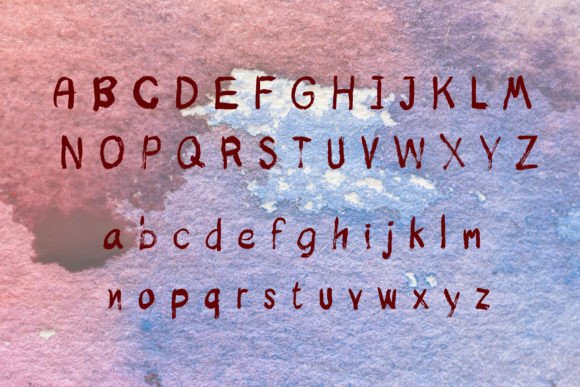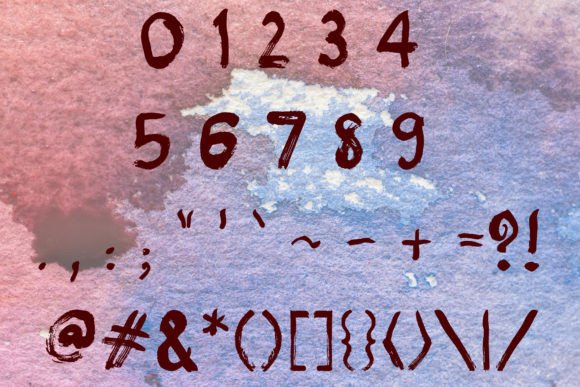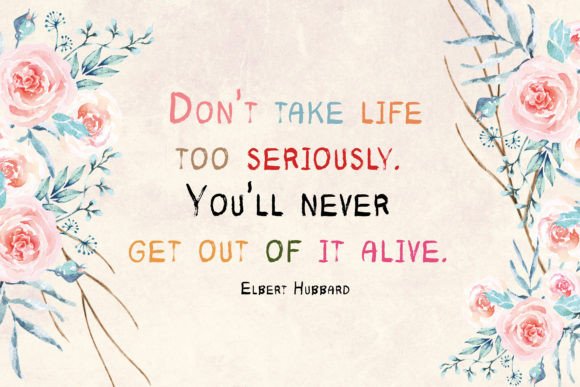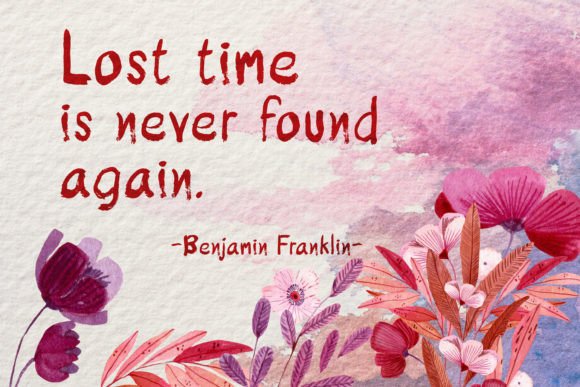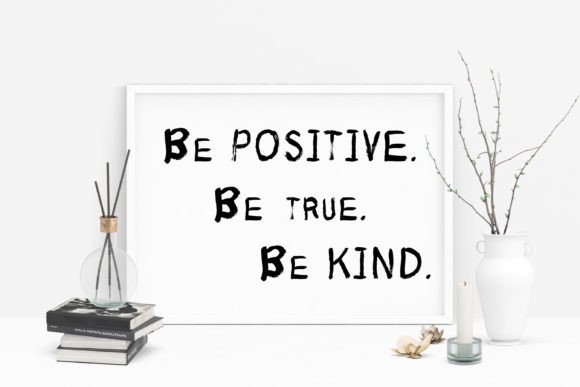
Introduction to Oliang Font
Have you ever been in the midst of a creative project, staring at a blank canvas, and suddenly a spark of inspiration hits you? The idea of creating something unique and eye-catching flows through your mind, and you can’t wait to bring it to life. For designers, moments like these are what drive us to push the boundaries of our craft. And what better way to add that special something to your design than with the perfect font?
Enter the Oliang Font, a beautifully crafted handwritten brush font that is sure to elevate your design game. With its friendly, relaxed vibe, this font is perfect for creating a product that stands out from the crowd and looks attractive. Whether you’re working on a design project or just looking for a new design resource, the Oliang Font is a high-quality addition to any creative toolkit.
Key Features of Oliang Font
- High-quality, professional font design ideal for creative projects requiring a unique touch.
- Includes multiple font weights and styles, providing versatility for use in various design contexts.
- Perfect for designers seeking a distinctive and modern font to elevate their designs and stand out from the crowd.
Honest Review: Oliang Font
I recently stumbled upon the Oliang Font while searching for a unique design resource for a creative project. The font is available for a free download, which was a major plus in my book. Upon closer inspection, I was impressed by its high quality and versatility.
Here are some things that work well with the Oliang Font: ✨ It has a transparent background, which makes it easy to use on any design background. ✨ It’s highly customizable, allowing me to tailor the font to fit my specific design needs. ✨ The font is also highly legible, even at smaller font sizes.
- Legible at smaller font sizes
However, I did encounter some limitations with the Oliang Font: ⚠️ The font is not as extensive as some other options on the market, with a relatively small character set. ⚠️ It may not be suitable for complex designs that require multiple font styles.
Overall, I’m quite impressed with the Oliang Font. It’s a solid design resource that’s perfect for smaller creative projects or when you need a high-quality, free font. While it may have some limitations, I think it’s definitely worth checking out.
Tips for Getting the Most Out of Oliang Font
To get the most out of Oliang Font, experiment with different font sizes, colors, and styles. You can also use the font in combination with other design elements to create a unique and eye-catching design.
Common Use Cases for Oliang Font
Oliang Font is perfect for a variety of design projects, including logos, business cards, and social media graphics. Its high-quality design and transparent background make it an ideal choice for creative projects.